The world of tattoo artistry is a vibrant canvas where personal expression meets intricate design, with fonts and typography playing a crucial role in transforming simple ink into meaningful storytelling. Tattoo fonts are more than just letters – they’re an art form that bridges personal narrative with visual aesthetics, allowing individuals to communicate their deepest emotions, memories, and identities through carefully chosen typographic styles.
Understanding Tattoo Font Styles
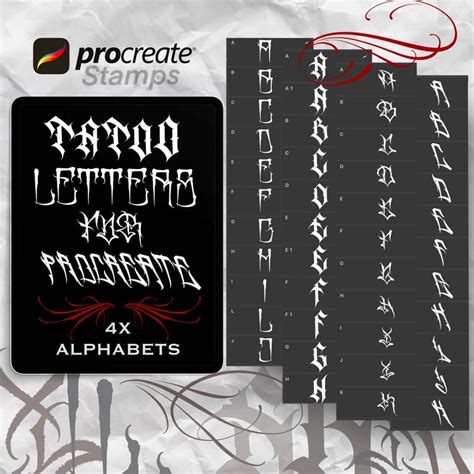
Tattoo fonts come in a diverse range of styles, each carrying its own unique personality and emotional resonance. From elegant script fonts to bold gothic lettering, the typography you choose can dramatically impact the overall message and feel of your tattoo.
Popular Tattoo Font Categories
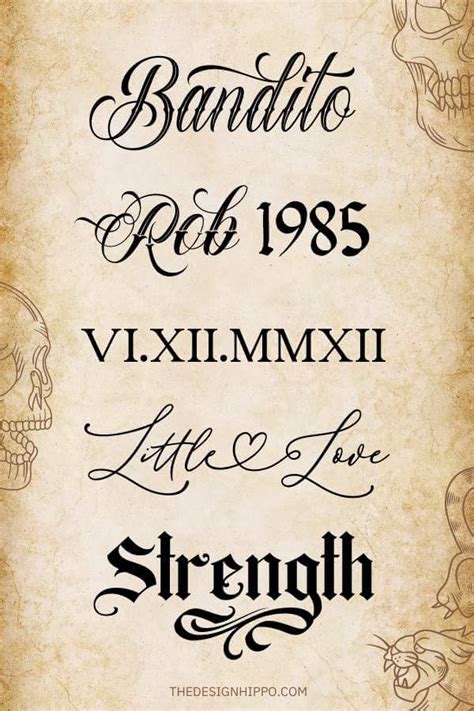
- Script Fonts: Flowing, cursive styles that evoke elegance and personal touch
- Calligraphy: Traditional hand-drawn styles with intricate strokes
- Tribal Fonts: Bold, geometric designs inspired by indigenous art
- Minimalist Fonts: Clean, simple letterforms for subtle statements
Choosing the Right Font for Your Tattoo
Selecting the perfect font is a deeply personal journey that requires careful consideration. The right font can elevate your tattoo from a simple design to a powerful personal statement. Consider factors like:
- Personal meaning behind the text
- Body placement of the tattoo
- Size and readability
- Your individual style and aesthetic preferences
Font Pairing and Design Integration
Expert tattoo artists often recommend integrating the font seamlessly with the overall design. This might mean choosing a font that complements additional artistic elements like illustrations, symbols, or background imagery.
Cultural and Linguistic Considerations
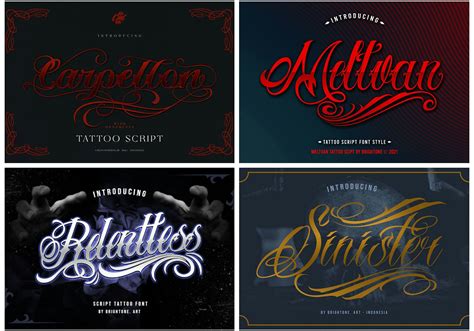
Different font styles carry cultural significance. Kanji characters, Arabic calligraphy, and Celtic scripts each bring unique historical and emotional depth to tattoo designs. Understanding the cultural context of your chosen font can add layers of meaning to your personal artwork.
Avoiding Common Font Design Mistakes
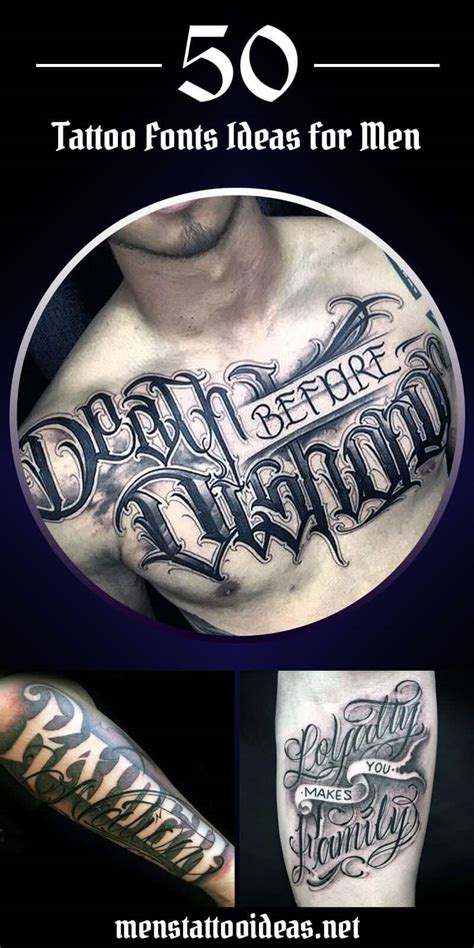
- Readability is key: Ensure the font remains clear and legible
- Consider aging: Some intricate fonts may blur or spread over time
- Proofread extensively: Spelling and grammar matter permanently!
The journey of selecting the perfect tattoo font is an intimate exploration of personal expression. Each curve, stroke, and letter tells a story – your story – etched permanently into your skin as a testament to your individual journey and identity.
How do I choose the right tattoo font?
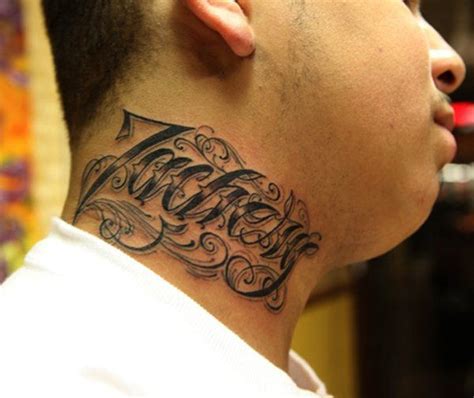
Consider your personal style, the meaning behind the text, body placement, and consult with a professional tattoo artist for guidance.
Do certain fonts work better for specific body parts?
Yes, font size and style should complement the body part. Curved areas like ribs might suit flowing scripts, while angular areas might work better with bold, geometric fonts.
How can I ensure my tattoo font remains readable over time?
Choose fonts with clear, distinct letterforms, avoid extremely thin lines, and work with an experienced tattoo artist who understands long-term ink preservation.